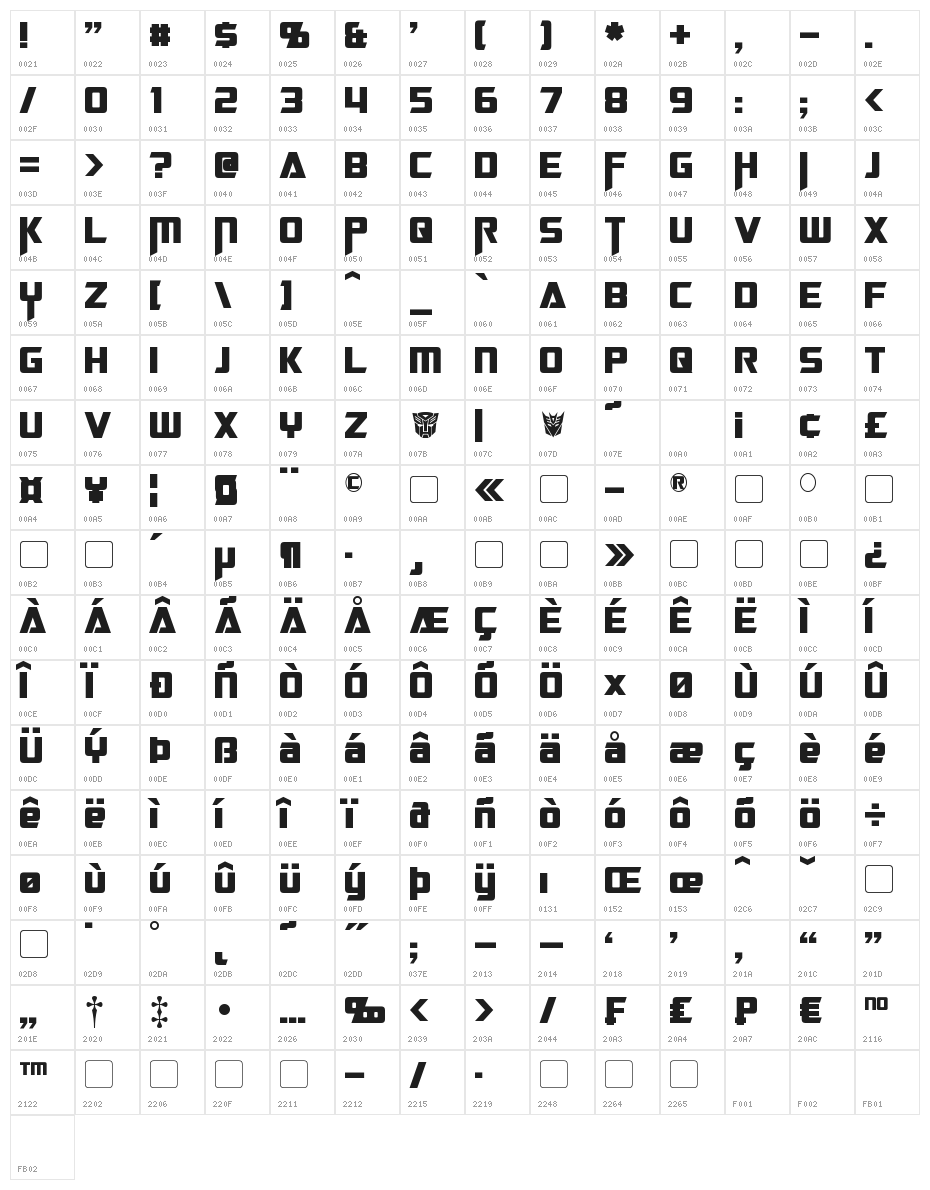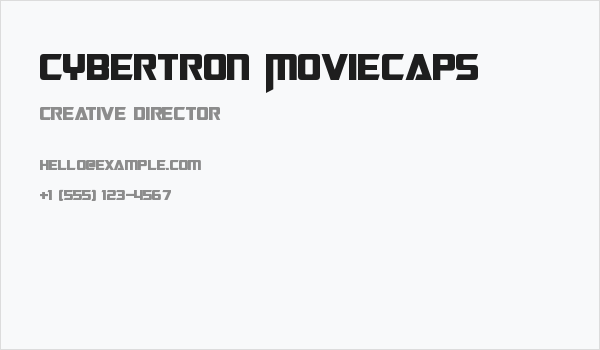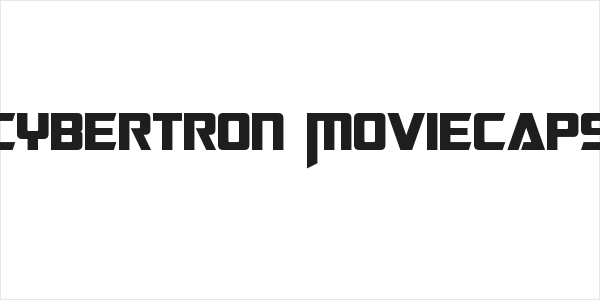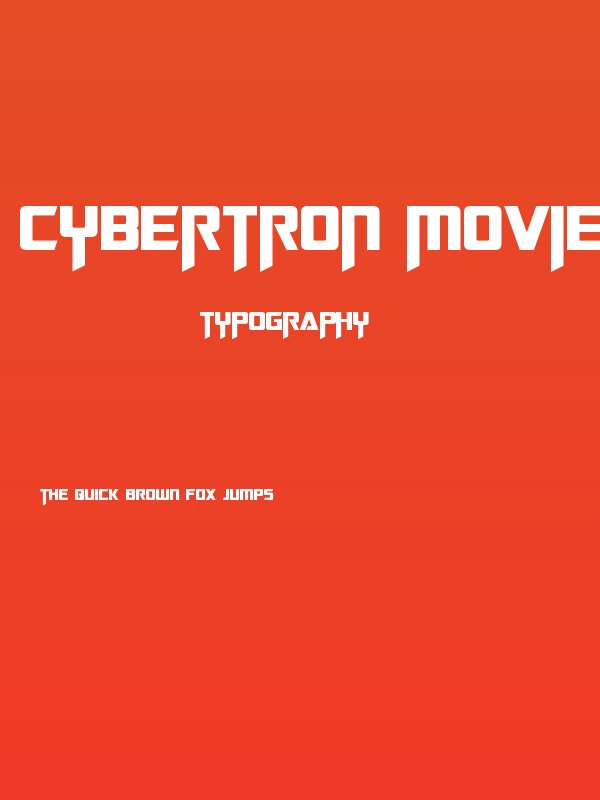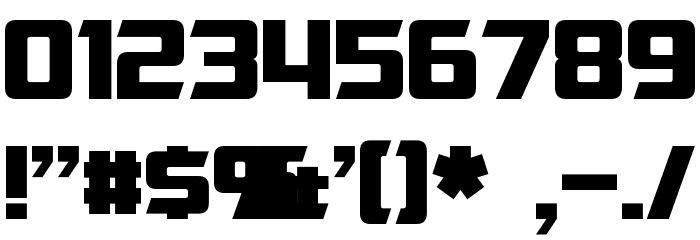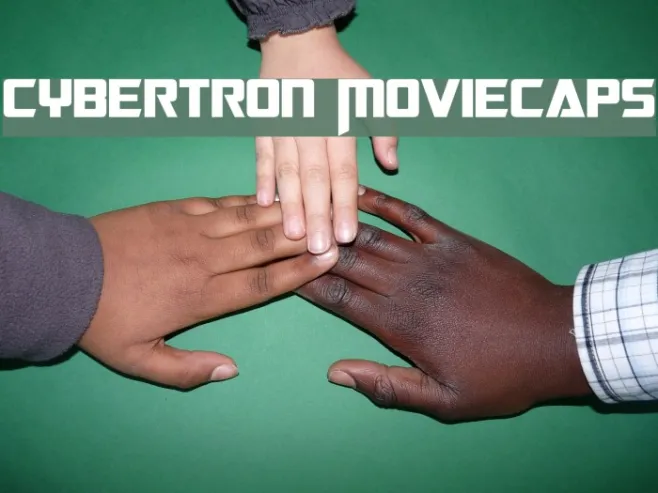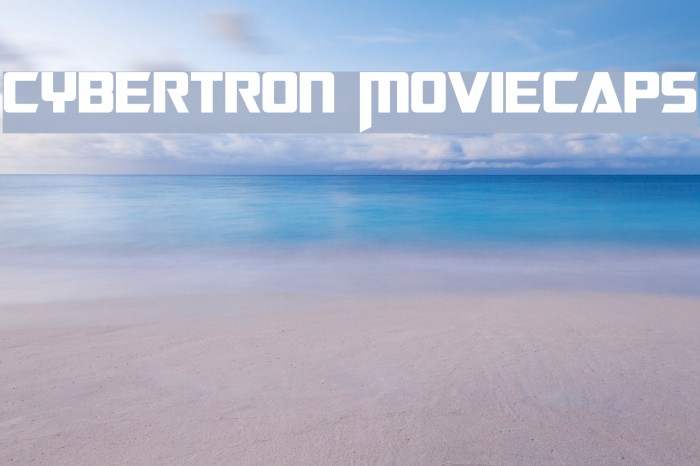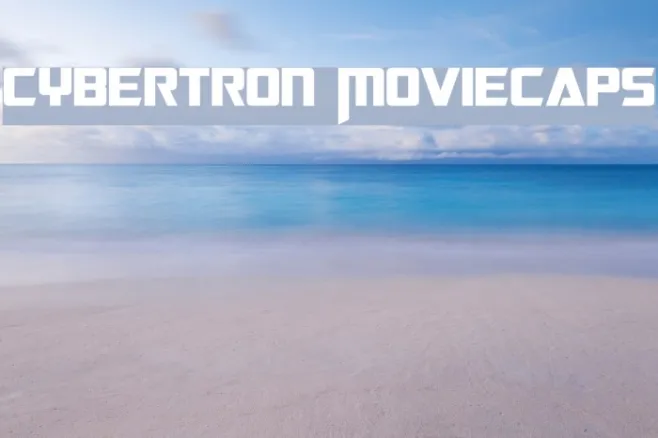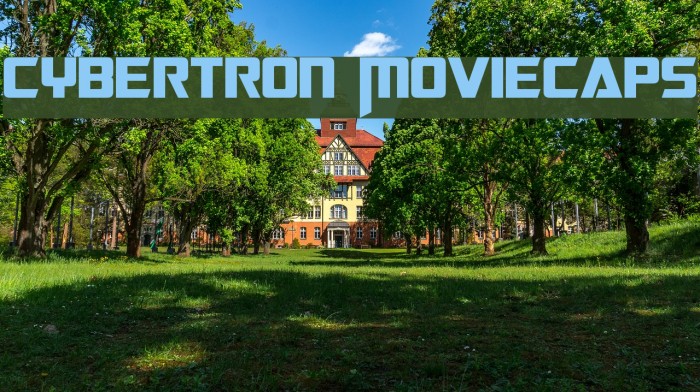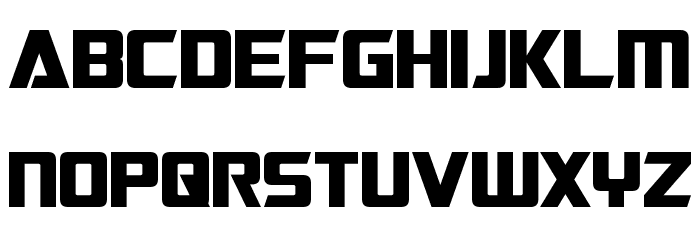
Cybertron Moviecaps Font
Cybertron Moviecaps Description
This font features a bold, futuristic design with sharp angles and geometric shapes. The uppercase letters are particularly striking, with a strong presence that suggests a sense of power and technology. The lowercase letters maintain the same angular style, creating a cohesive look throughout. Numbers and special characters are designed with the same boldness, ensuring consistency across all text elements. The font's unique style makes it ideal for projects that require a modern, tech-inspired aesthetic.
| Overall Style | Futuristic |
| Proposed Projects | Ideal for sci-fi movie posters, video game titles, tech branding, and futuristic-themed designs. |